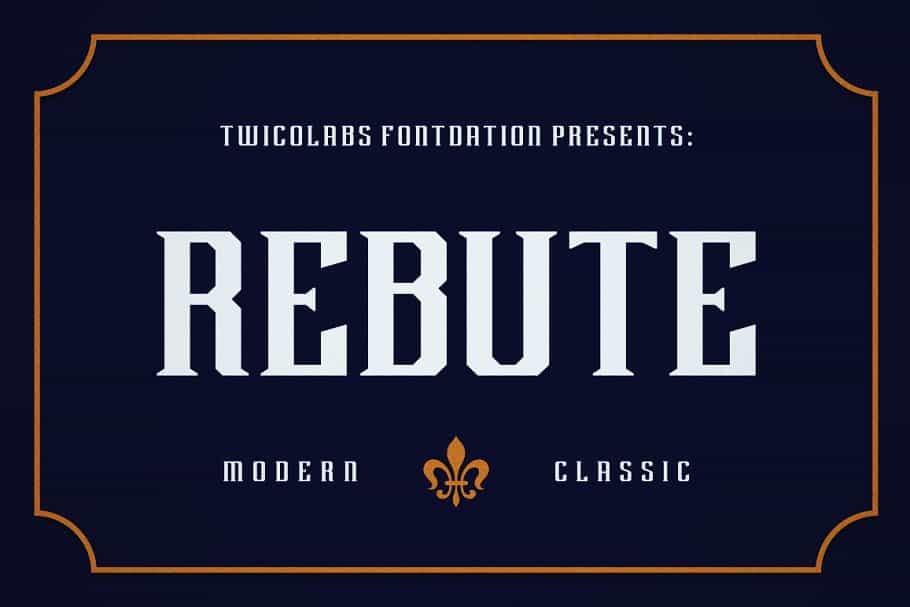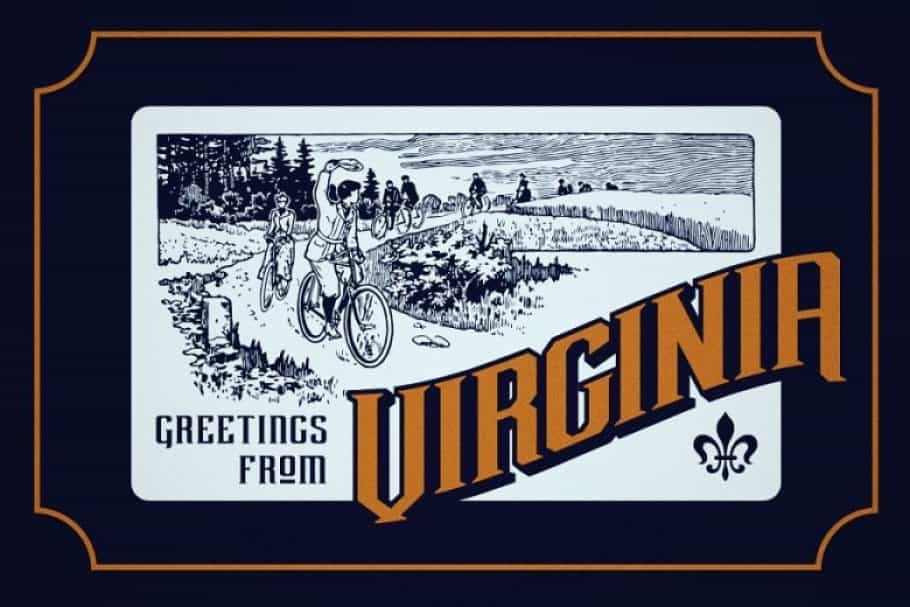
Discover Rebute Typeface, part of the Serif Display Gothic collection—a versatile and unique font perfect for adding a personal touch to your projects. Download it for free and enjoy crafting designs with style, from invitations to social media posts. This font is available exclusively for personal use, giving you the freedom to create without limits. Unlock your creativity with Rebute Typeface today!
Introducing Rebute Font. Rebute, an athletic and bold type of character. This all-caps monster is very flexible, you can use it as a standalone fighter but also fits in well with other fonts. Are you working on a vintage and/or sport themed designs? Anyway, let this solid and trustworthy font handle everything for you.